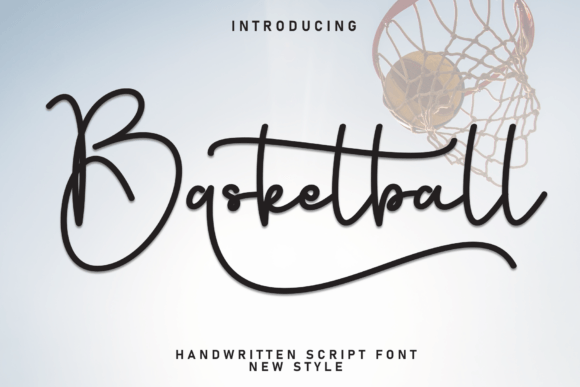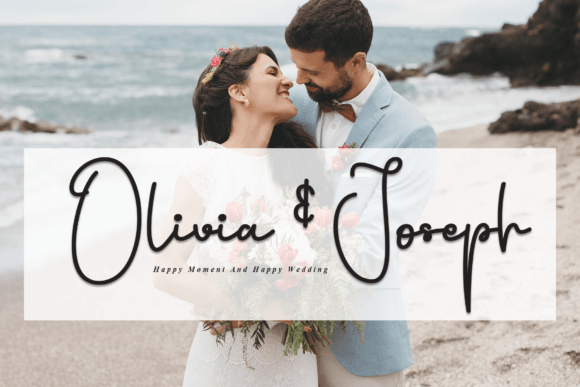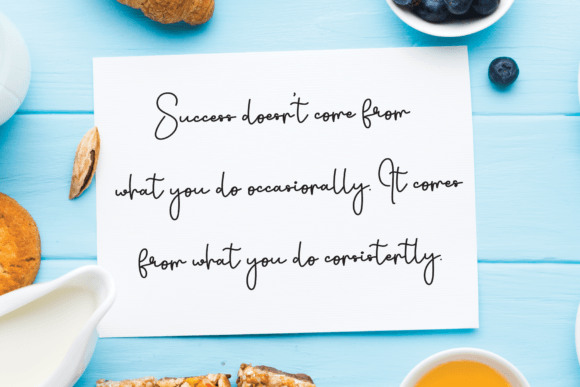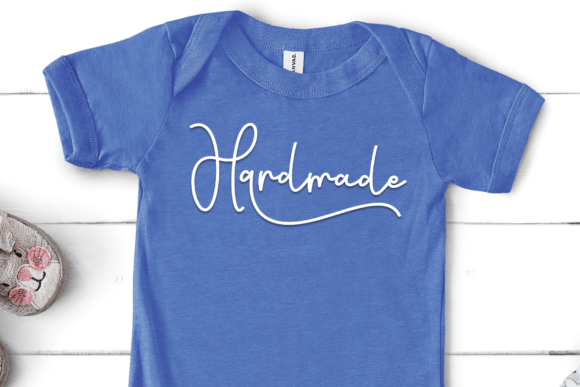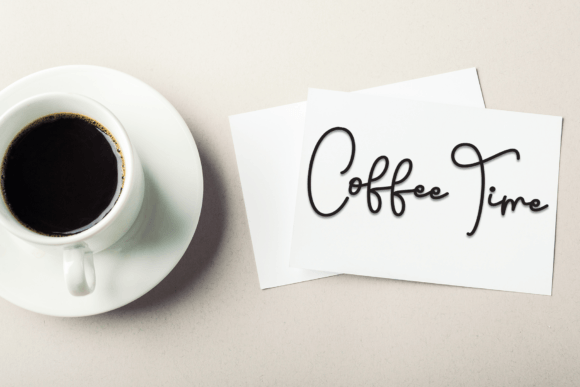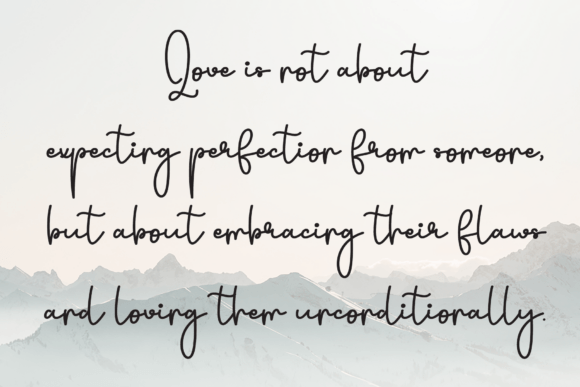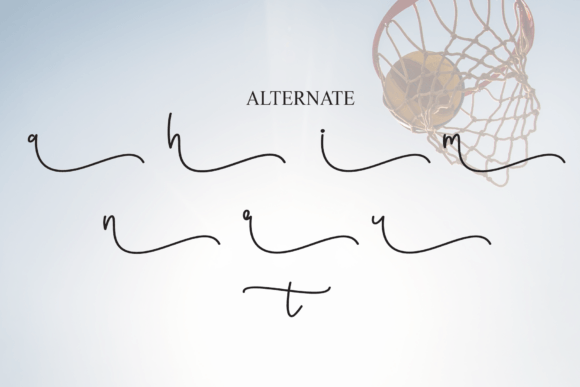
Basketball Font: The Ultimate Playful Touch for Your Designs
Remember that moment when you stumbled upon the perfect font for your project, and suddenly, everything fell into place? That’s exactly what happened to me when I discovered the Basketball Font. This charming handwritten display font is more than just a typography choice – it’s an invitation to create something special.
With its unique blend of sweetness and friendliness, Basketball Font is designed to add a personal touch to your designs. Whether you’re crafting beautiful wedding invitations or heartwarming greeting cards, this delightful font is sure to bring a smile to your face and the faces of your audience. As a designer, you know the value of a well-chosen font in creating an engaging and intimate atmosphere. Basketball Font is a perfect choice for those who desire to inject a playful and cozy vibe into their work.
Basketball Font Key Features
- Font Family: Basketball Font is a unique, custom-designed font family.
- Unique Characteristics: Features bold, dynamic lines and curves that evoke the energy and excitement of basketball, making it perfect for sports-themed designs, logos, and branding.
- Flexibility: Suitable for use in various applications, including logos, signage, merchandise, and digital media, such as websites and social media graphics.
Basketball Font Review
Overall, I’d say the Basketball Font is a decent choice for sports-themed designs, but it has its limitations.
- Dynamic lettering: The font’s irregular shapes and bold lines make it perfect for capturing the energy and movement of basketball.
- Versatility: The Basketball Font can be used for a variety of design elements, from logos to typography.
- Playful feel: The font’s casual, handwritten style gives it a fun and approachable vibe.
- Limited legibility: At smaller sizes, the font can become difficult to read due to its irregular shapes and cramped letterforms.
- Not suitable for body text: The font’s casual style makes it better suited for headlines and decorative elements rather than body text.
- Not highly customizable: The font’s bold, dynamic style can be difficult to alter without losing its unique character.
Overall, I think the Basketball Font is a good choice for designers who want to add some energy and playfulness to their sports-themed designs. However, it may not be the best choice for projects that require high legibility or flexibility.
Here are a few tips to help you get the most out of the Basketball Font:
- Use the font in conjunction with other sports-themed graphics and images.
- Use the font to create a bold, eye-catching headline or title.
The Basketball Font is commonly used in:
- Sports-themed designs and graphics.
- Marketing materials for sports teams and events.
- Posters and flyers for sports-related promotions.